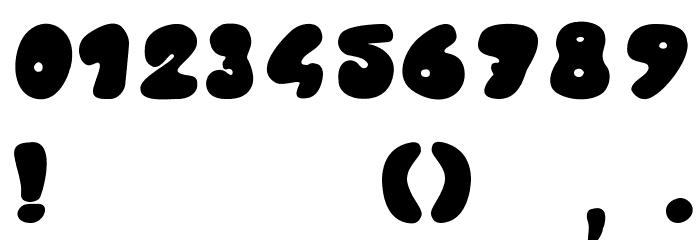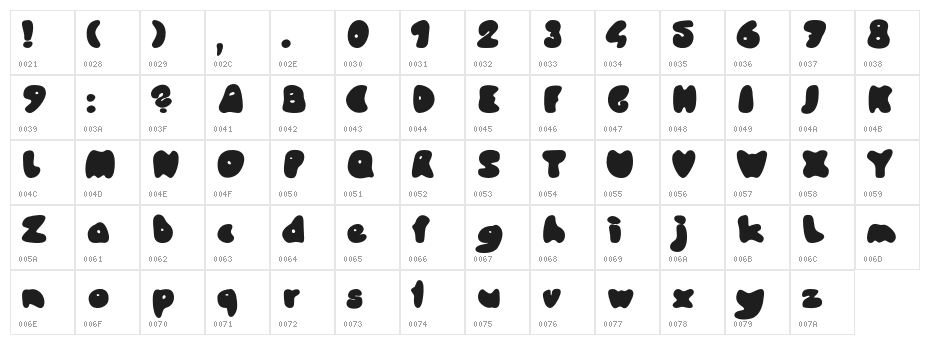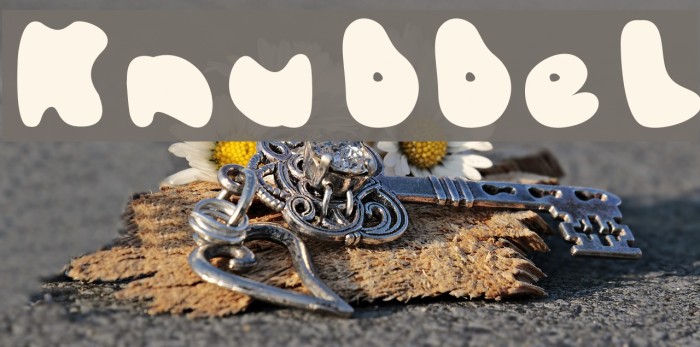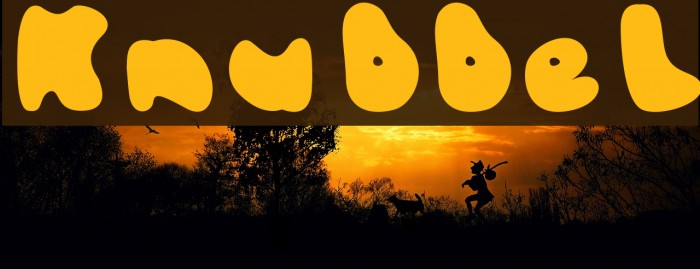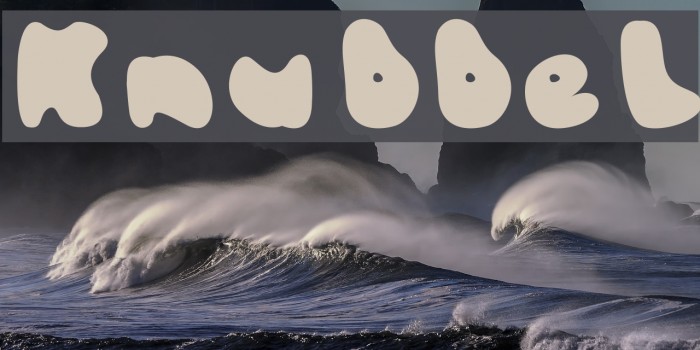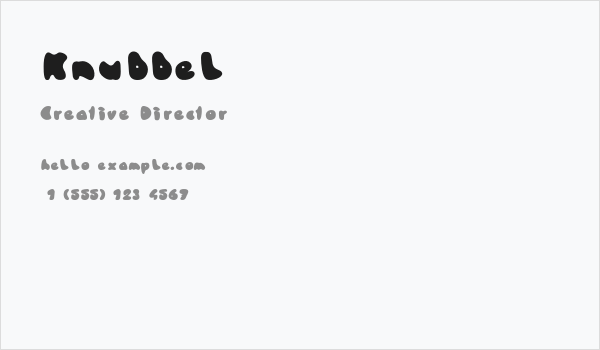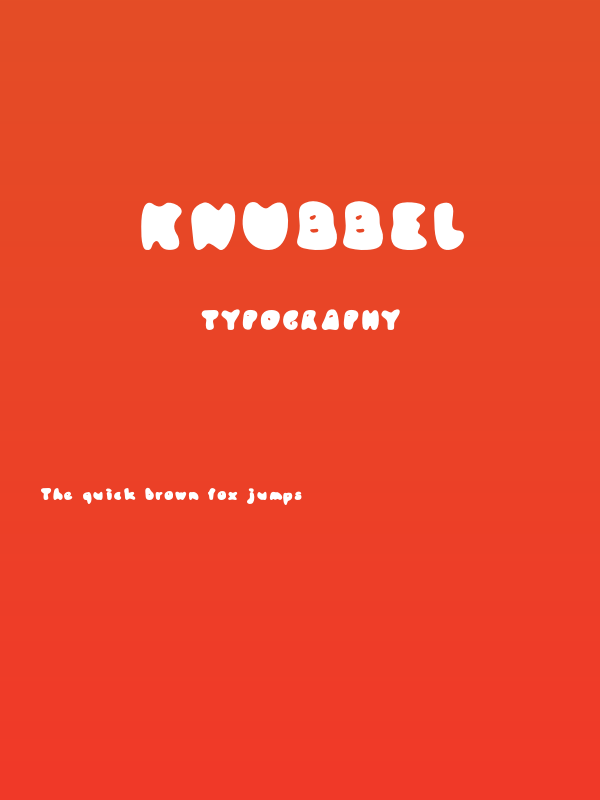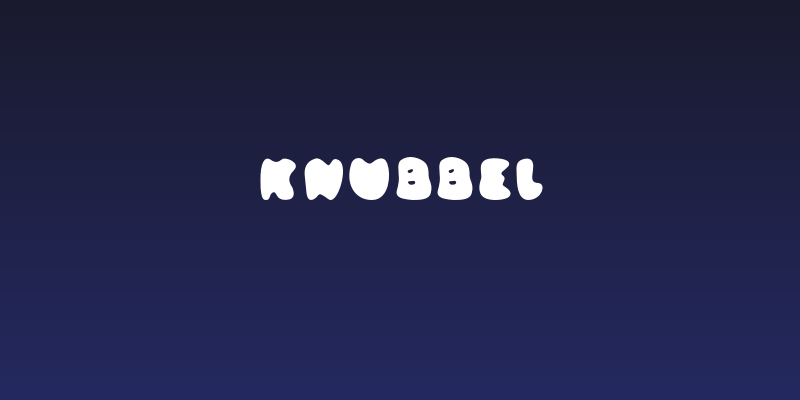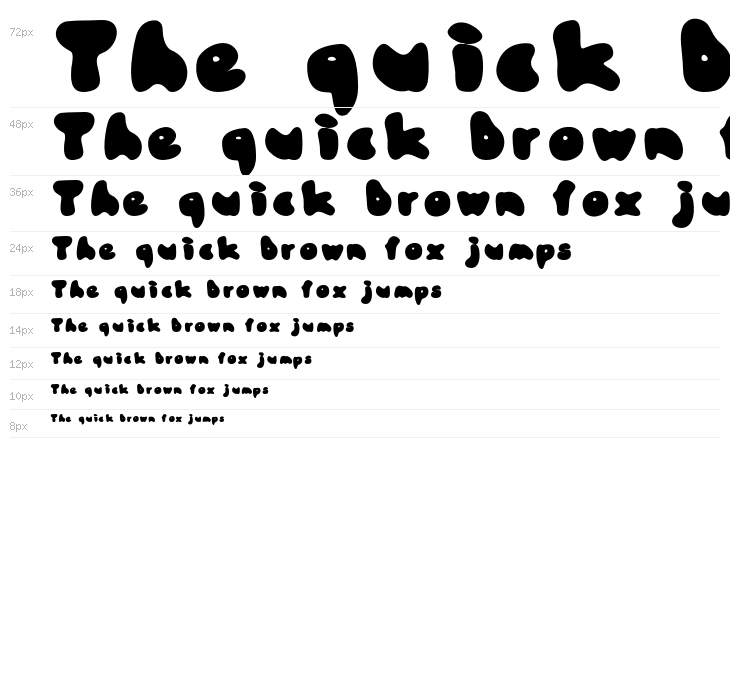
Knubbel Font
Knubbel Description
This playful and bold font features rounded, bubbly characters that give off a whimsical and fun vibe. The letters are thick and have a soft, pillowy appearance, making them stand out with a unique personality. The font maintains a consistent weight throughout, with no sharp edges or angles, contributing to its friendly and approachable style. The characters are closely spaced, enhancing the compact and cohesive look. This font is ideal for projects that aim to convey a sense of joy and creativity, such as children's books, playful branding, or event posters. Its distinct style ensures that it captures attention and adds a lively touch to any design.
| Proposed Projects | Children's books, playful branding, event posters, creative designs. |